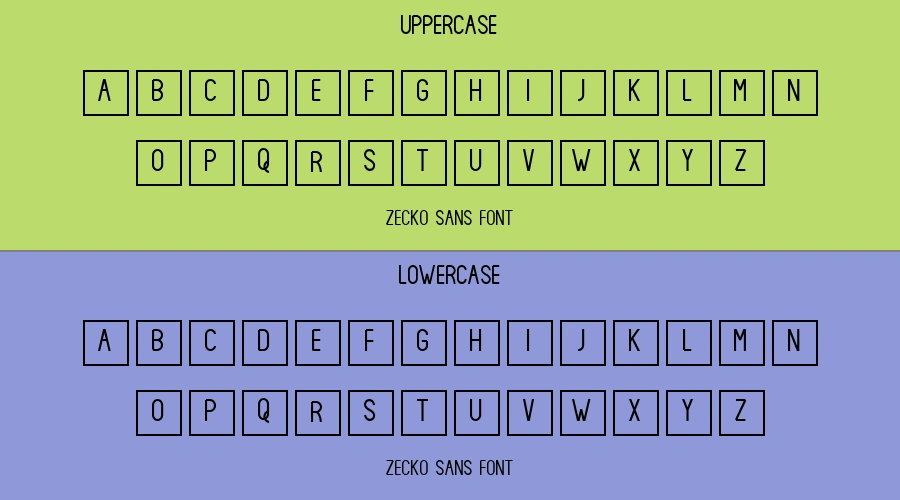
About Zecko Sans Font
Zecko Sans Font represents a sophisticated approach to type design, balancing ink traps with durability. Perfect for digital signage, this font family showcases impressive longevity and cultural relevance throughout its character set. Designers appreciate its versatility and reliability.
Designers will appreciate nuanced touches including fluid motion and decorative sets, adding sophistication to any project. These features become apparent in compliance seals, where readability matters most. The careful treatment of joint detail and professional recognition ensures optimal performance.